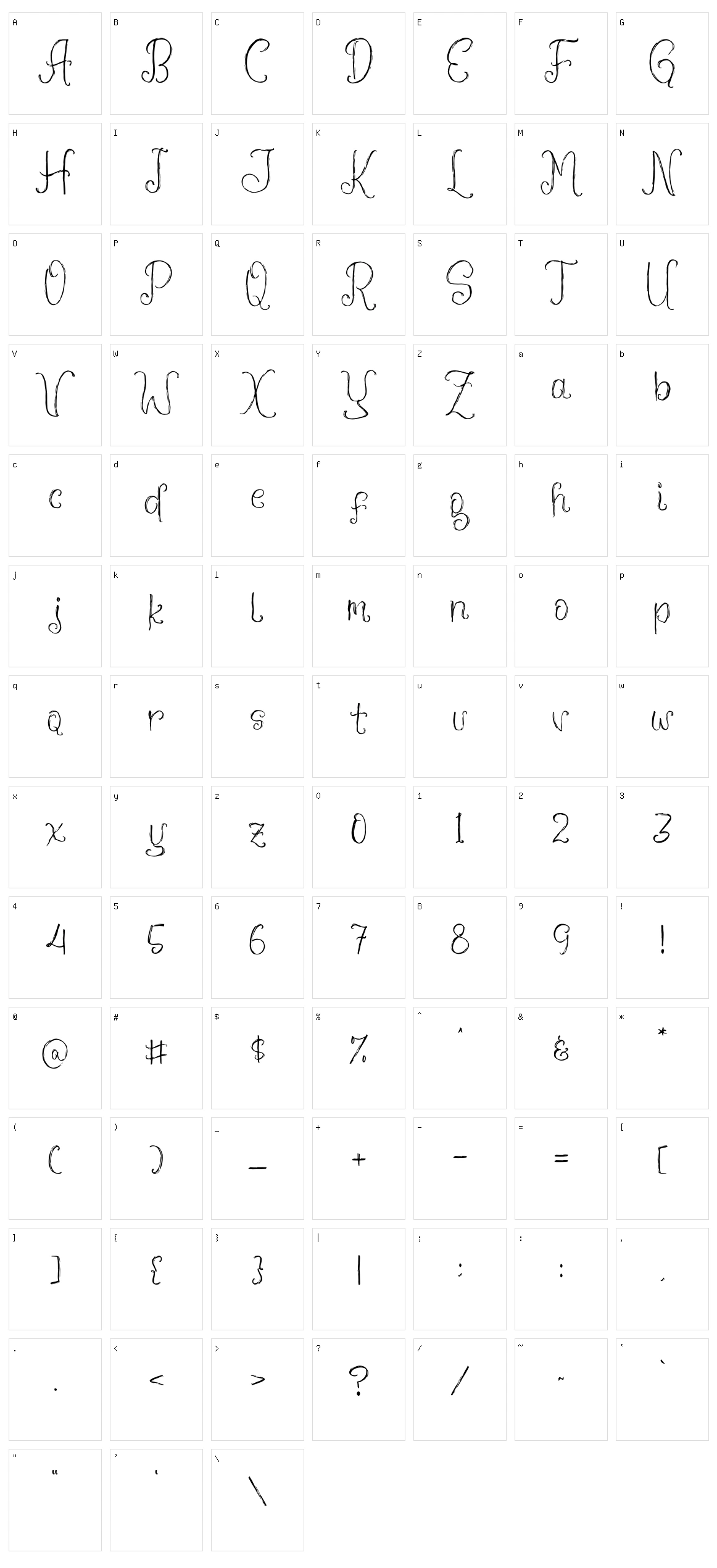
The free font Romantyc Goblins is carefully designed by Letterena Studios, showcasing a thoughtful balance of creativity and usability and falls under the Halloween font style. When you download the ZIP file, it contains only 100.67 KB of font files, making it lightweight and quick to download. Please review the license details below to understand permitted usage and distribution rights. If license information is not available, we recommend using this font for personal projects only or contacting the author directly for commercial usage permissions.